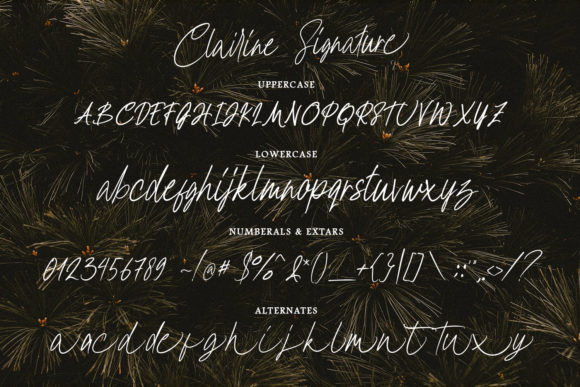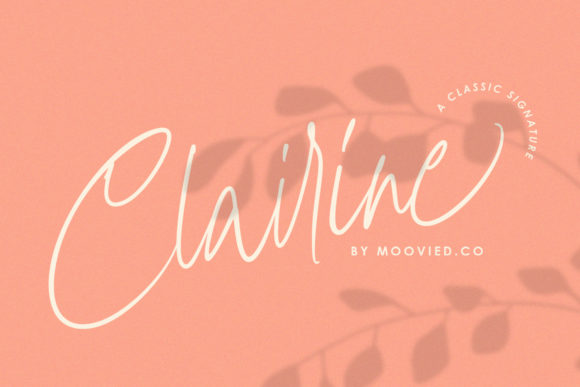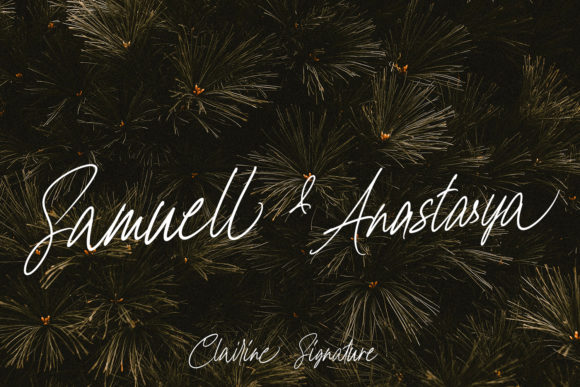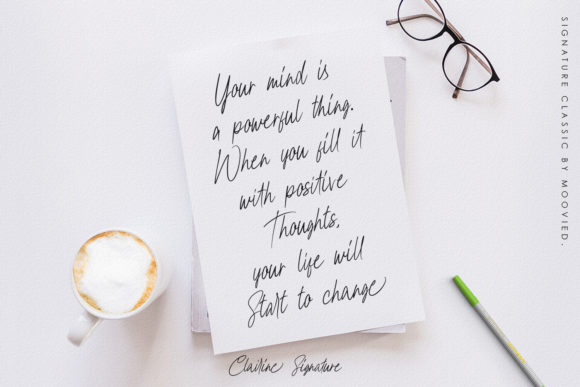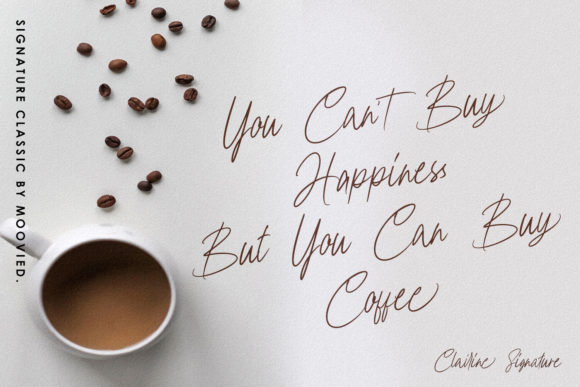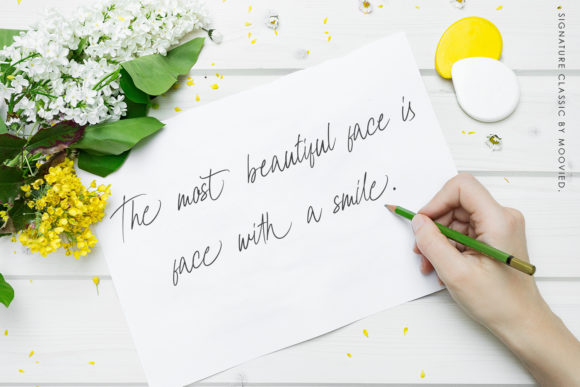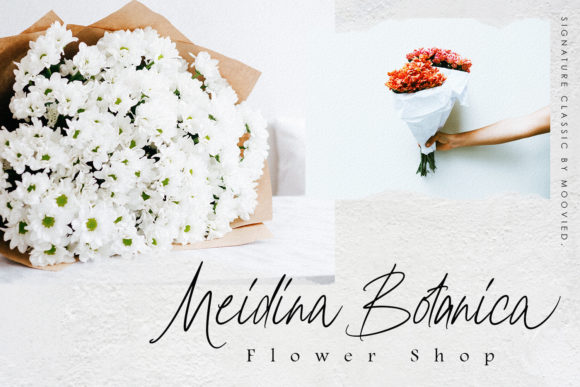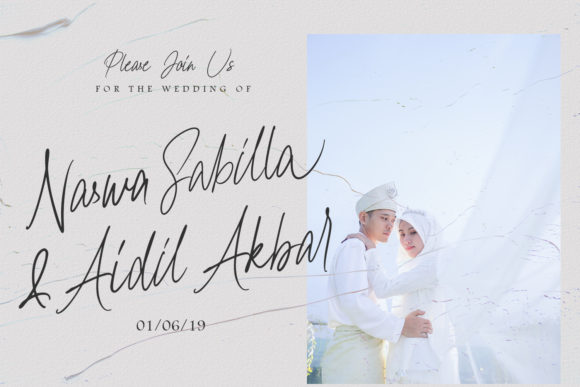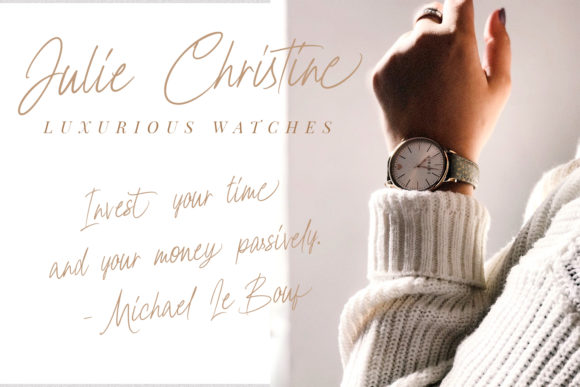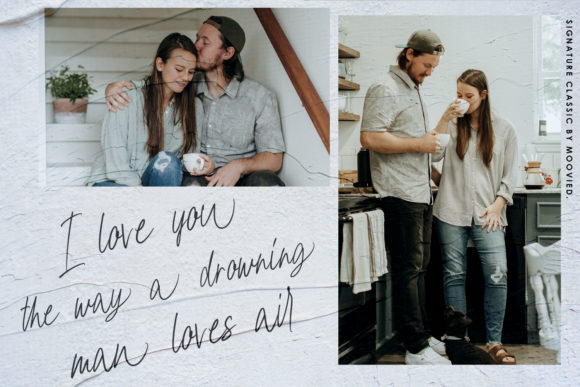
Chairine Font
About Chairine Font
Chairine is a beautiful and bold handwritten font with an incredibly authentic feel. It will add a unique spin to any creative project!